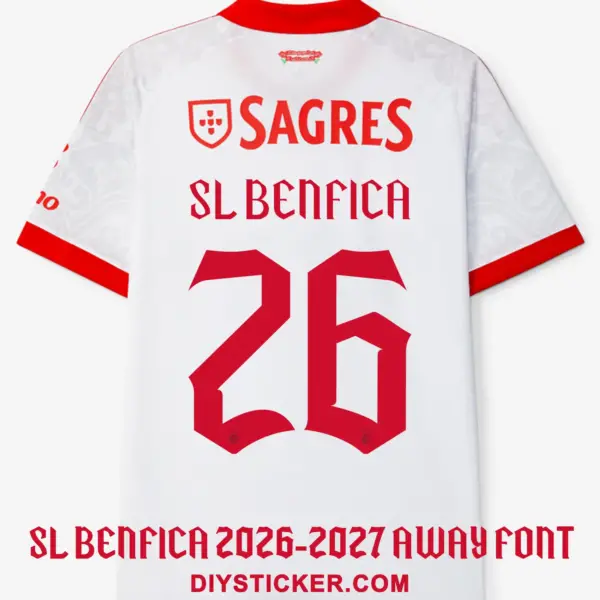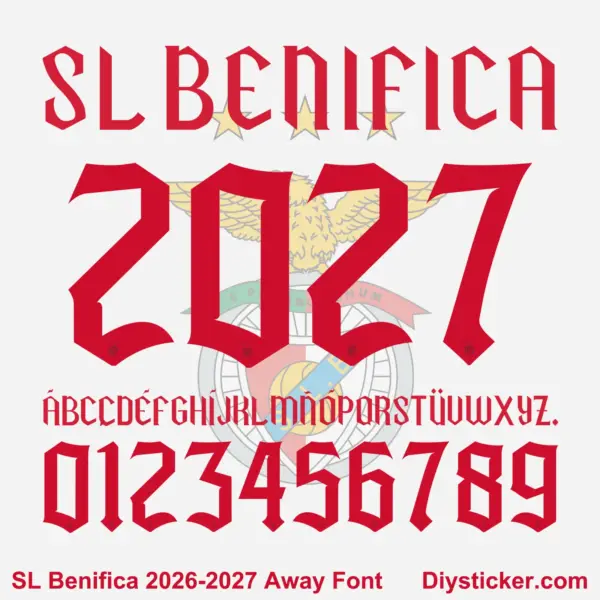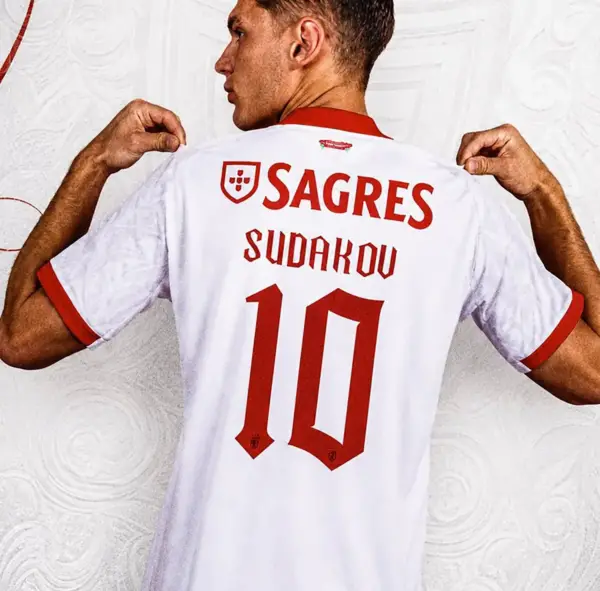
SL Benfica 2026-2027 Away Font & Numbers Download (TTF, OTF, Vector)
Celebrate the historic Portuguese heritage of As Águias with this premium typography asset. This package delivers the official-style SL Benfica 2026-2027 away font and custom Gothic-inspired numeric vector layout, tailored specifically for the upcoming Liga Portugal and European campaigns. Built for independent apparel brands, custom garment printers, and professional vinyl cutting shops, this product features an automated instant digital download link immediately following secure checkout.
SL Benfica 2026-2027 Away Font & Numbers Vector Kit: Premium Liga Portugal Customization
Upgrade your custom print production with the high-performance SL Benfica 2026-2027 away font and complete numbers set. Designed to perfectly replicate the distinctive club look worn on the pitch at the Estádio da Luz and throughout away stadiums across Europe, this digital toolkit offers unrivaled geometric precision. Whether you are creating an authentic custom nameset for a passionate fan or compiling bold promotional sports signage, our vector files ensure factory-fresh alignment. Discover more iconic European club layouts by exploring our curated repository.
Aesthetic Design Breakdown & Typography Engineering
The SL Benfica 2026-2027 away font showcases a highly sophisticated, classical athletic geometry that beautifully balances traditional European sporting elegance with crisp modern performance detailing:
• Gothic-Inspired Character Profile: Moving away from standard block shapes, the alphabet and numbers feature a tall, high-contrast block-Gothic structure. The elegant angular stems, sharp points, and sweeping arches inject a prestigious, historic aesthetic to the back of the shirt.
• Integrated Club Crest Detail: Positioned perfectly within the lower baseline curve of each large digit is a crisp, miniature club crest monogram. This detail anchors the design in Benfica’s iconic identity and ensures complete replica authenticity for high-end customization.
• High-Contrast Solid Crimson Palette: Engineered specifically to pop with maximum visual impact when rendered in brilliant solid red against the team’s textured white away jersey with red accents.